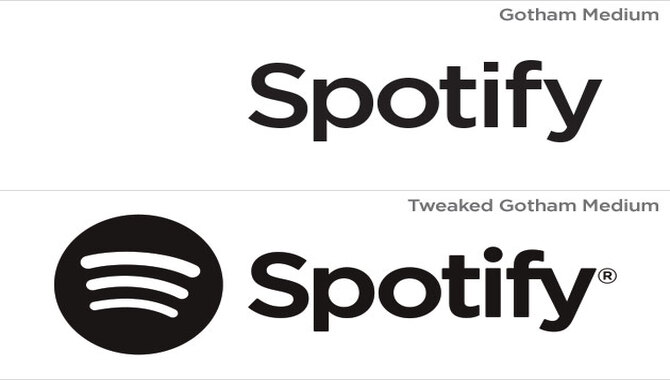
As music lovers, we all have used Spotify at least once. The app’s unique charm makes it stand out from other music platforms. One thing that adds to its appeal is its font choice for the songs.
What Font Does Spotify Use For Songs – Answered
Spotify uses a combination of fonts, with different fonts used for different purposes. The font closest to Spotify’s font for songs is Gotham Medium. Another similar font that they also use is Metropolis.
For its logo and playlist, Spotify uses a Circular sans-serif font. Although the Spotify logo has minor differences in the dot of the “i” compared to the Gotham Medium font, the similarities are uncanny.
Additionally, the Circular font used by Spotify can be downloaded for free. Combining the wordmark and icon gives a unique look to the Spotify logo. Ultimately, the combination of these fonts has propelled Spotify’s brand to the top of the music industry.
The Spotify logo is likely designed using the Gotham Medium font with minor modifications. The font used for songs was designed by Andreas Holmström, with Christian Wilson as the creative director. A free link is available on the Spotify website if you want to download the font.
Spotify Font
The popular music streaming service, Spotify uses a mix of fonts for its branding and app interface. The font used in the Spotify logo is Gotham Medium, with a slight modification to the dot above the “i.” However, for its app interface and playlists, Spotify uses a sans-serif font called Circular. This font was derived from the Gotham font family and weighed five.
Spotify considered using a serif font for its branding but ultimately decided against it as they found it less readable. For those looking to create designs inspired by Spotify’s branding, a free alternative font is Metropolis by Chris Simpson. Combining Gotham and Circular fonts gives Spotify a modern and sleek look across all its platforms.
The popular music streaming service Spotify uses a simple and minimalist font called Circular across its platform. Spotify uses the Circular sans-serif font on its logo, playlists, and other app elements. In addition to the font, the Spotify logo combines a wordmark and a green circular icon.
The circular icon is most likely designed using the Gotham Medium font with minor changes to the dot on the “i.” It’s important to note that the Spotify logo should only be used with black, white, and non-duotone photography to ensure branding consistency.
Overall, the use of the Circular font and the iconic Spotify logo has helped to establish the brand’s identity as a leading music streaming service.
Spotify named the font for songs as Spotify Circular, which is a custom font. And, Spotify designed this font exclusively and it is only available for personal use. However, there are alternatives to the font, including Montserrat, Helvetica Neue, and Helvetica.
The Spotify logo is another important aspect of the brand’s visual identity. The current version of the logo includes three curved white lines in a green circle, symbolizing the synergy between internet connectivity and music in Spotify’s business model.
The font in the logo is also Spotify Circular, and the 2013 overhaul saw the removal of the green rectangle and ‘O’ in the wordmark, with the font changing to a simple sans-serif. Use the primary logo colorway, which is green, only with black, white, and non-duotone photography.
What Is The Spotify Logo Font Name?
Spotify uses a custom circular font called Spotify Circular for song titles and other elements of its interface. We modified and shaped the popular typeface Gotham to fit within the circular design of the Spotify logo, resulting in this font. The specific sub-font used in the current Spotify logo is Gotham Bold.
The designer most likely used Gotham Medium with minor changes to the dot on the “i” to design the Spotify logo, even though the full font package of the Gotham typeface family includes 66 different font variants.
It is important to note that Gotham is a fully commercial font that requires a license for professional use. A free alternative could be Metropolis, a similar typeface that has a similar style and vibe to that of the Spotify logo’s font.
Ans: To use the Spotify font, you will need to download Gotham Medium, which is a sans-serif typeface designed by Tobias Frere-Jones. Gotham comes in 66 different font variants in both OTF and TTF formats and is commonly used for signage, logos, and marketing materials in many countries.